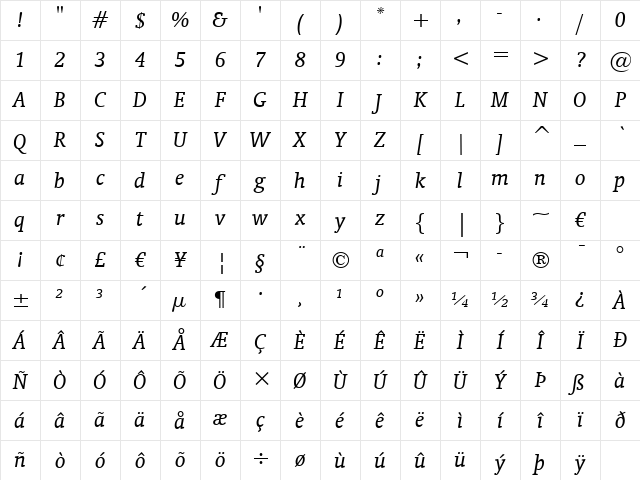
Oranda BT Italic
Design Context for Oranda BT
Oranda BT is a composed and adaptable typeface that performs quietly and consistently across a wide range of design contexts. The slanted form adds forward momentum and visual energy.
Pro Tip: Use Oranda BT for emphasis, pull quotes, and subheadings where its slanted energy can add rhythm to the layout.